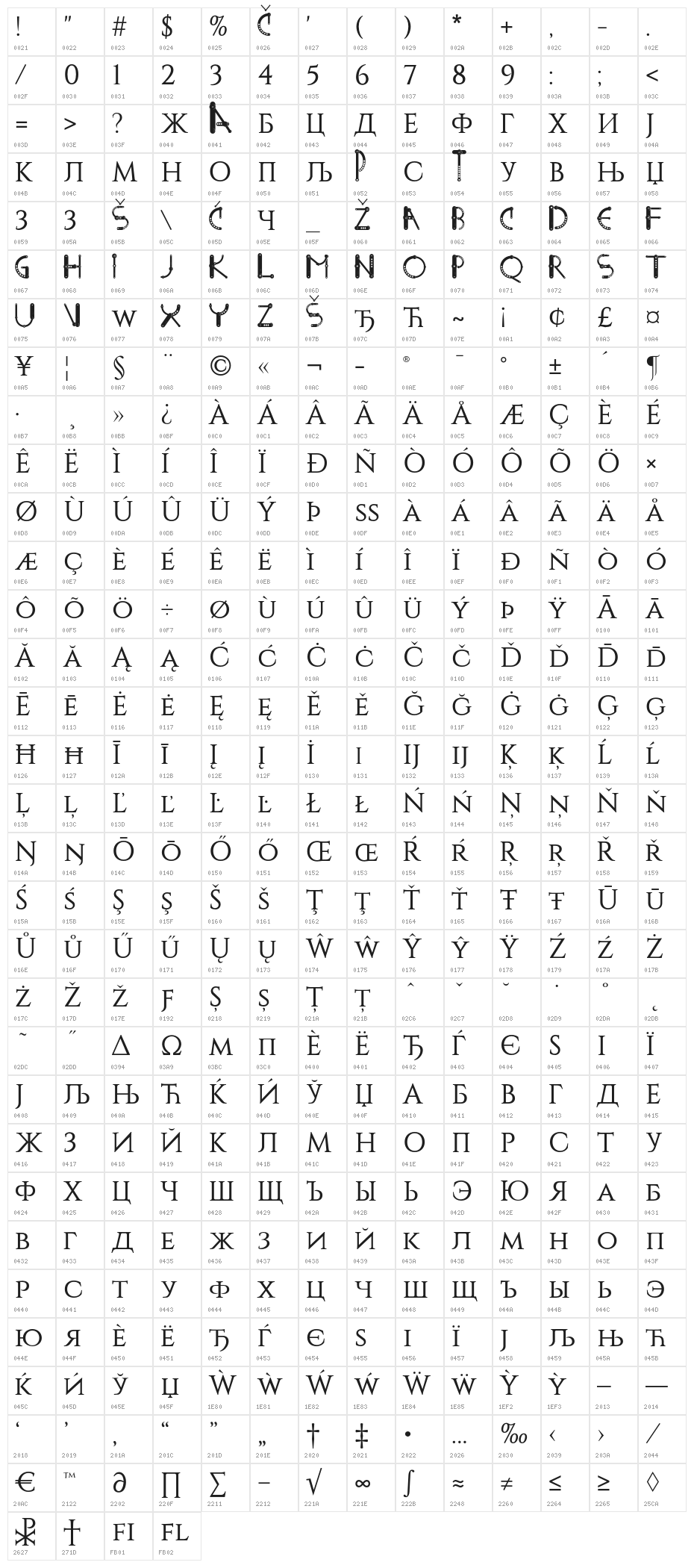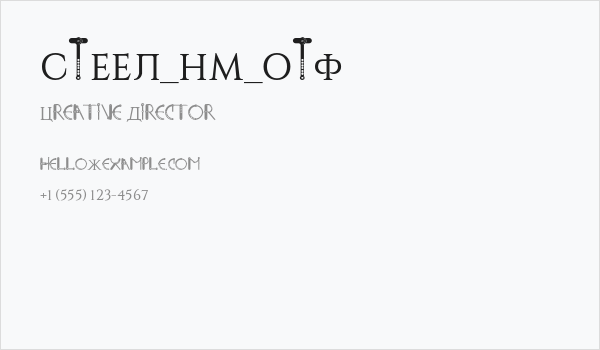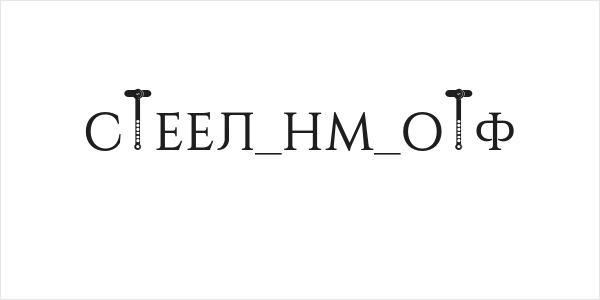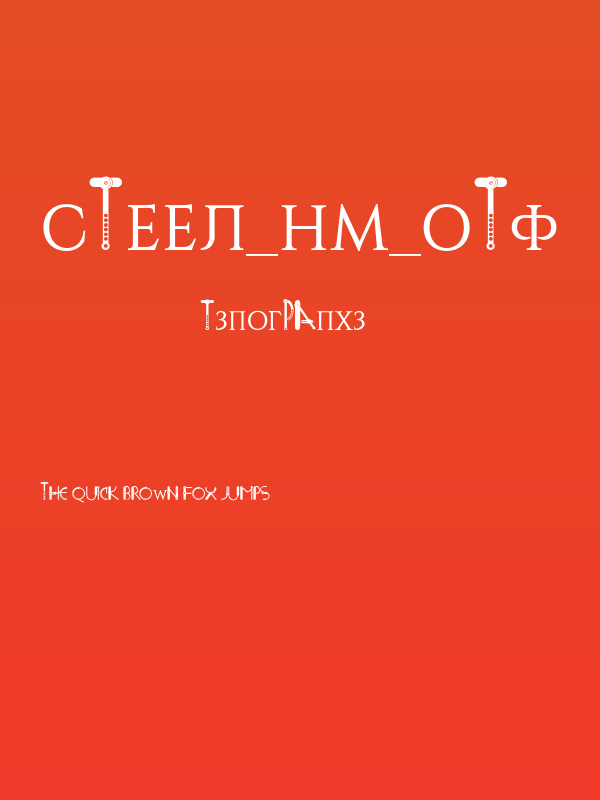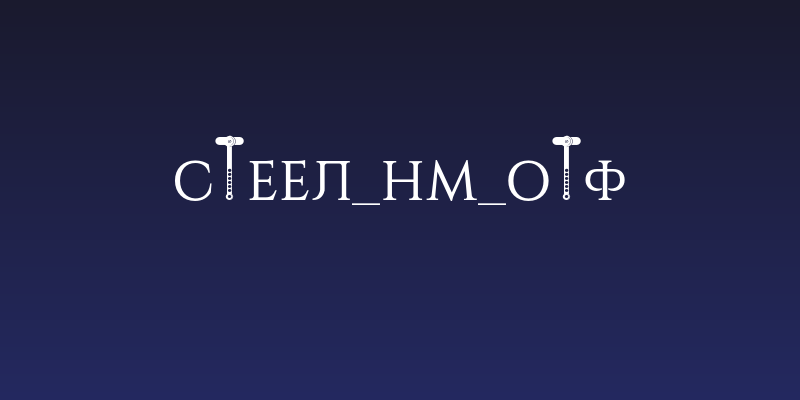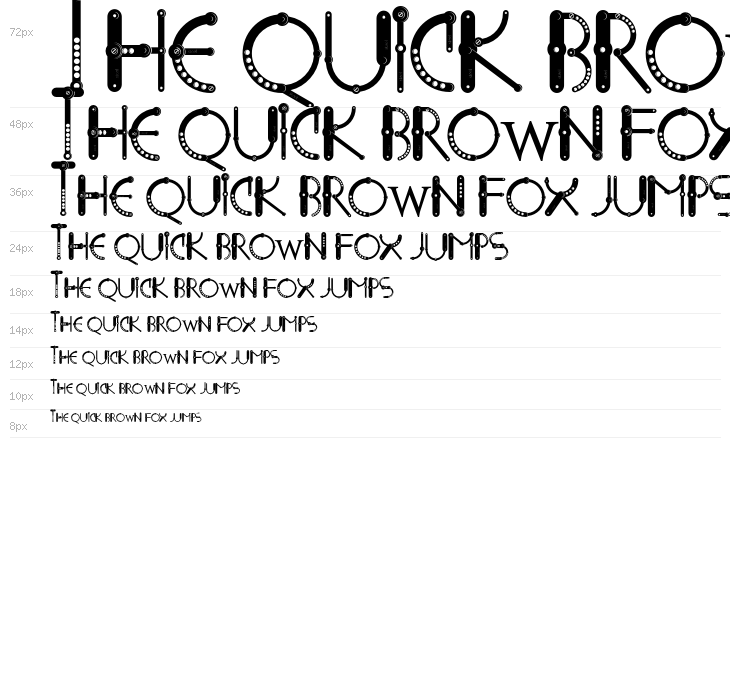
STEEL_NM_OTF Font
STEEL_NM_OTF Description
This font features a unique blend of mechanical and industrial elements, with a distinct decorative style. The uppercase letters are characterized by bold, geometric shapes with intricate detailing, resembling mechanical components. The lowercase letters maintain a consistent style, offering a cohesive look. The numerals are clear and legible, with a slight decorative flair that complements the overall design. Special characters are creatively integrated, enhancing the font's versatility. This font's design is both eye-catching and functional, making it suitable for a variety of creative applications.
| Overall Style | Industrial, Decorative |
| Proposed Projects | Ideal for branding, posters, and packaging design, especially in industries related to technology or engineering. |